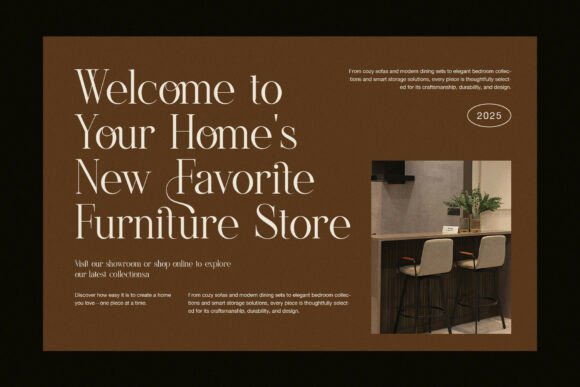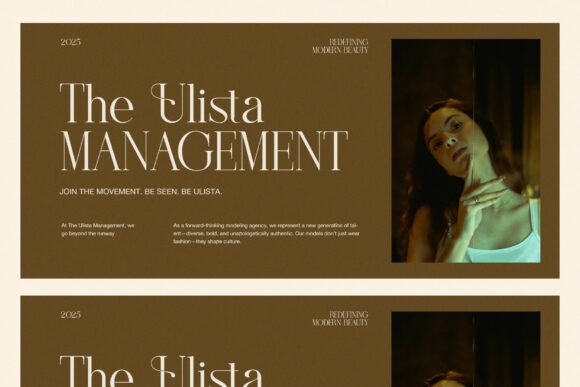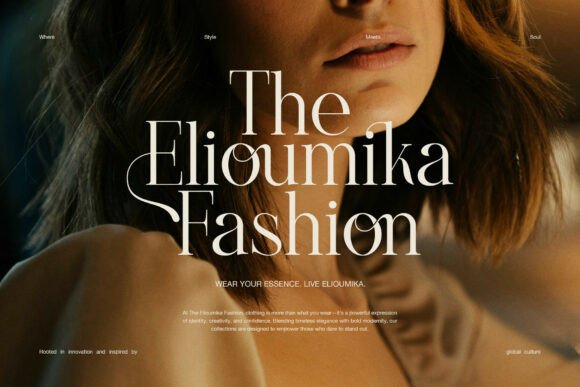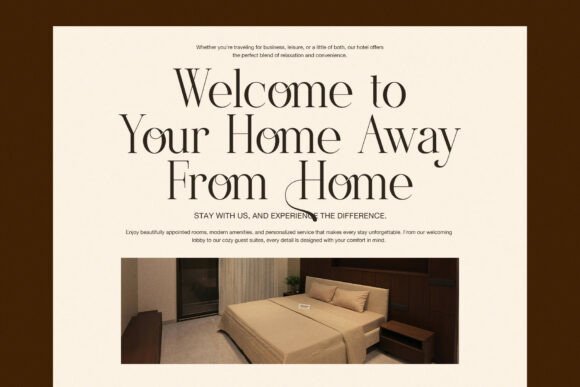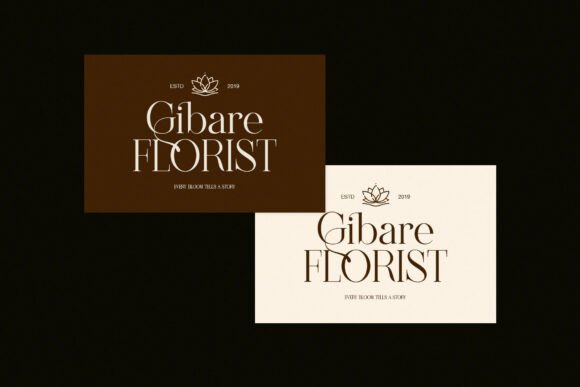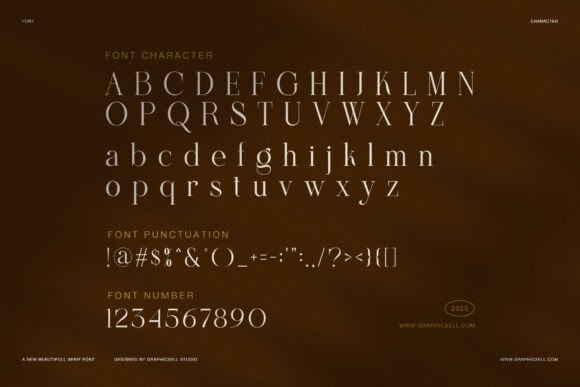
Introducing Brilion Font: The Epitome of Timeless Elegance and Modern Simplicity
In the world of typography, few fonts manage to strike a balance between classic beauty and contemporary simplicity. Brilion Font is one such exceptional typeface that seamlessly blends the elegance of the past with the sleekness of the present. Designed to add a touch of luxury to any design, Brilion is a versatile serif font that has become a favorite among designers and crafters alike.
The Design Philosophy Behind Brilion
Brilion’s design is rooted in the principle of balancing timeless beauty with modern simplicity. Its smooth lines, gentle curves, and clean structure are a testament to its elegance. The font’s balanced look makes it an ideal choice for a wide range of applications, from branding and wedding stationery to magazines and product packaging.
One of the standout features of Brilion is its natural rhythm, which gives it a soft and polished feel. The smooth flow between thin and thick strokes adds to its elegance, making it both refined and easy to read. The subtle contrast in stroke widths gives Brilion a distinct personality without making it look heavy or overpowering.
Versatility and Readability
Brilion’s versatility is one of its most compelling attributes. It works beautifully for both long texts and big titles, making it an excellent choice for designers who need a font that can perform well in various contexts. Whether you’re working on a comprehensive brand guideline, a wedding invitation suite, or a magazine layout, Brilion adapts effortlessly.
The font’s readability is another significant advantage. The careful attention to detail in its design ensures that Brilion remains clear and legible, even in smaller sizes. This makes it an excellent choice for body text, as well as for headlines and titles.
Features and Character Set
Brilion is more than just a beautiful font; it’s also highly functional. It includes a comprehensive character set, featuring uppercase and lowercase letters, numbers, punctuation, and stylish alternates. Additionally, Brilion supports ligatures and multilingual characters, making it an excellent choice for designers working on international projects or those who want to add a touch of sophistication to their work.
The inclusion of ligatures allows designers to create flowing, connected text that adds to the overall elegance of their design. Multilingual support, on the other hand, ensures that Brilion can be used across different languages and scripts, making it a versatile tool in any designer’s arsenal.
Applications of Brilion Font
Brilion’s versatility makes it suitable for a wide range of applications. Here are some of the most popular uses of this elegant font:
• Branding: Brilion’s balanced and elegant design makes it an excellent choice for logos, brand guidelines, and marketing materials.
• Wedding Stationery: The font’s romantic and sophisticated feel makes it perfect for wedding invitations, save-the-date cards, and other wedding-related stationery.
• Magazines and Editorial Design: Brilion’s readability and elegance make it an excellent choice for magazine layouts, articles, and feature stories.
• Product Packaging: The font’s clean structure and balanced look make it suitable for product labels, packaging, and point-of-sale materials.
Brilion Font is a masterclass in balancing timeless beauty with modern simplicity. Its elegant design, versatility, and readability make it an excellent choice for designers and crafters looking to add a touch of luxury to their work. With its comprehensive character set, ligatures, and multilingual support, Brilion is poised to become a go-to font for a wide range of design projects.
Whether you’re working on a branding project, wedding stationery, or editorial design, Brilion is sure to impress. Its smooth lines, gentle curves, and clean structure make it a font that will elevate your design and leave a lasting impression on your audience.